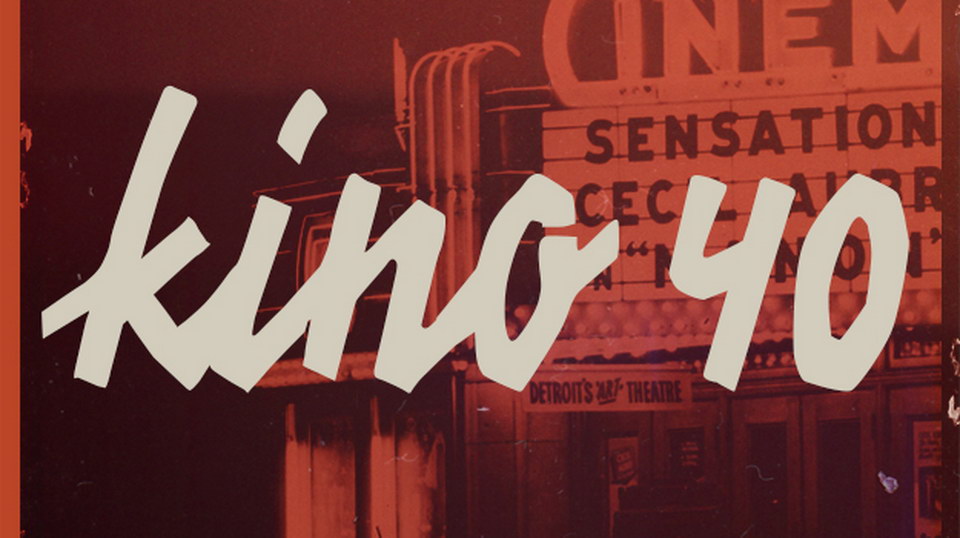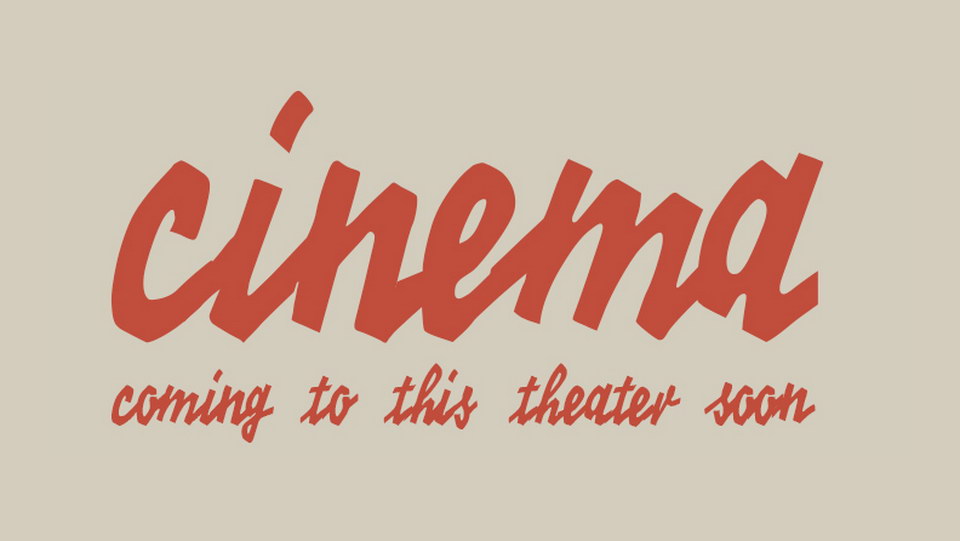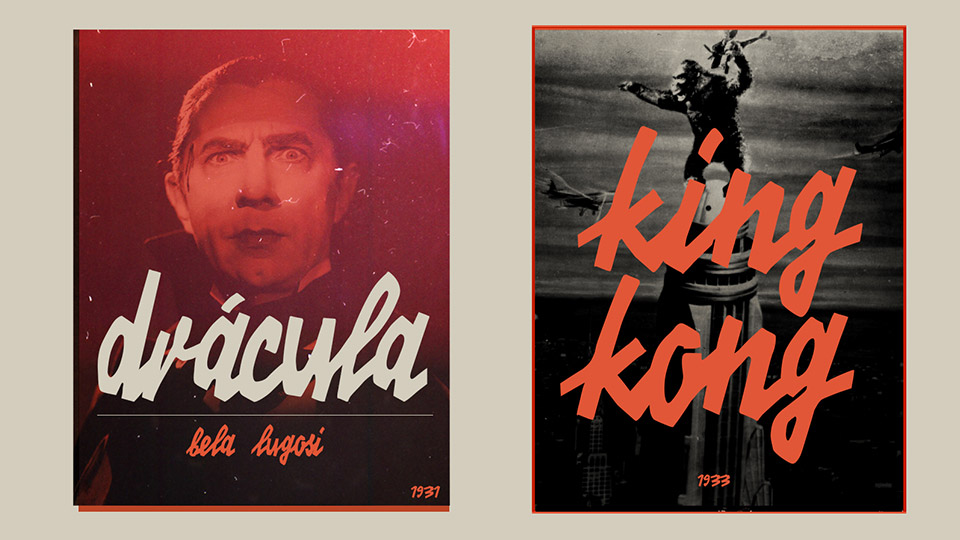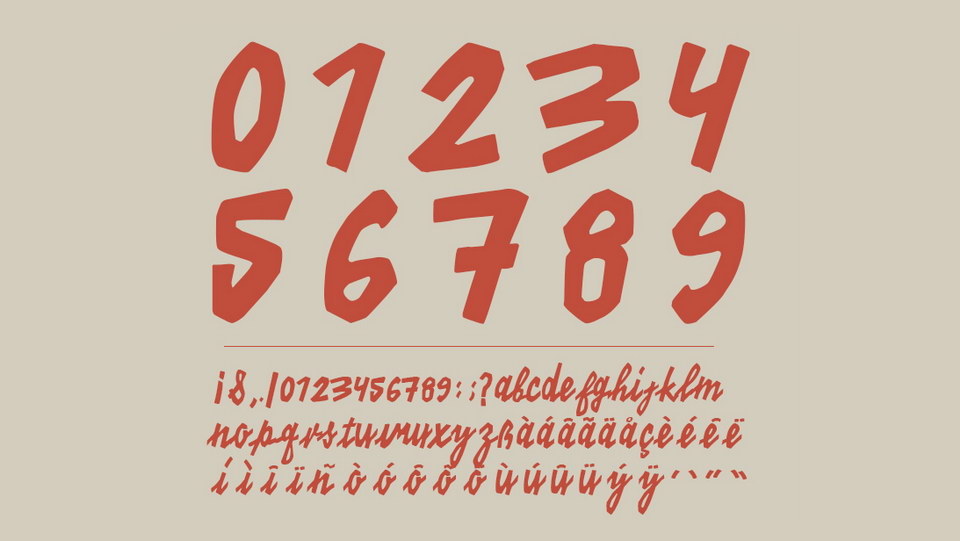
Kino 40 is a vintage display font inspired by the old cinema handwrite style. It contains lowercase letters, nimbers and punctuation.
Kino 40 font perfectly fits for old style posters, movie and book covers, crafts and other creative projects.